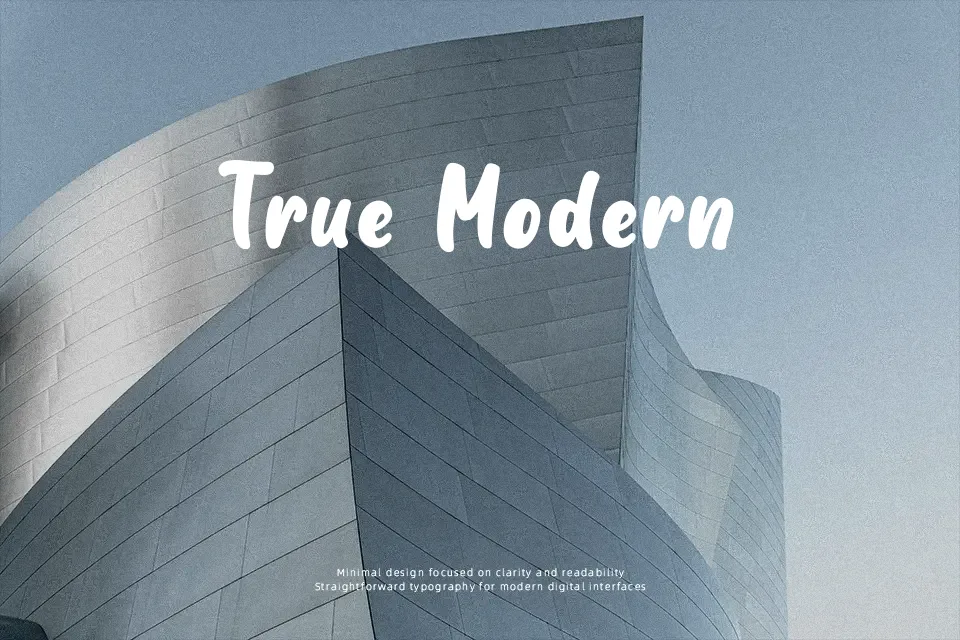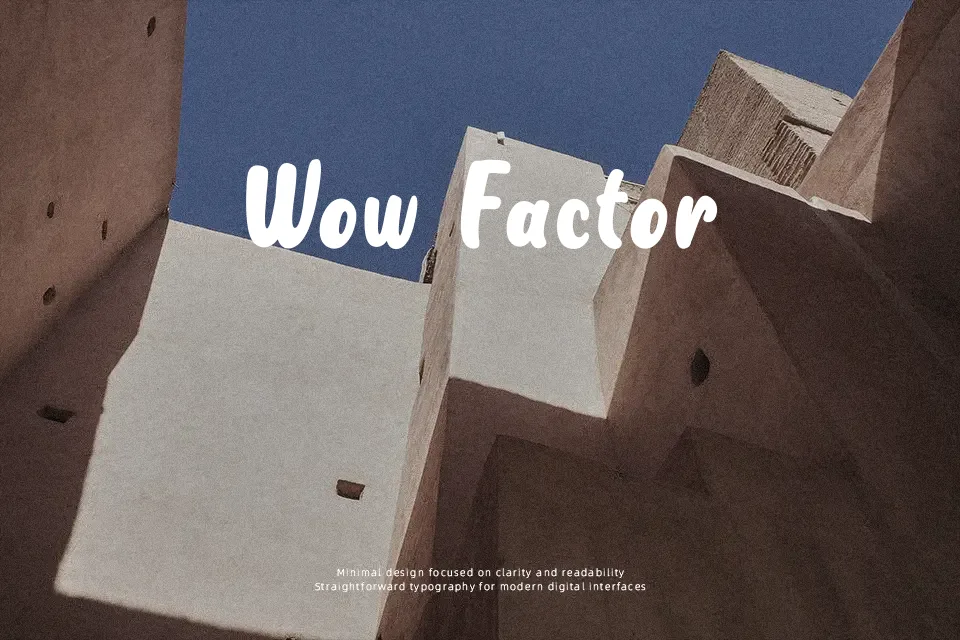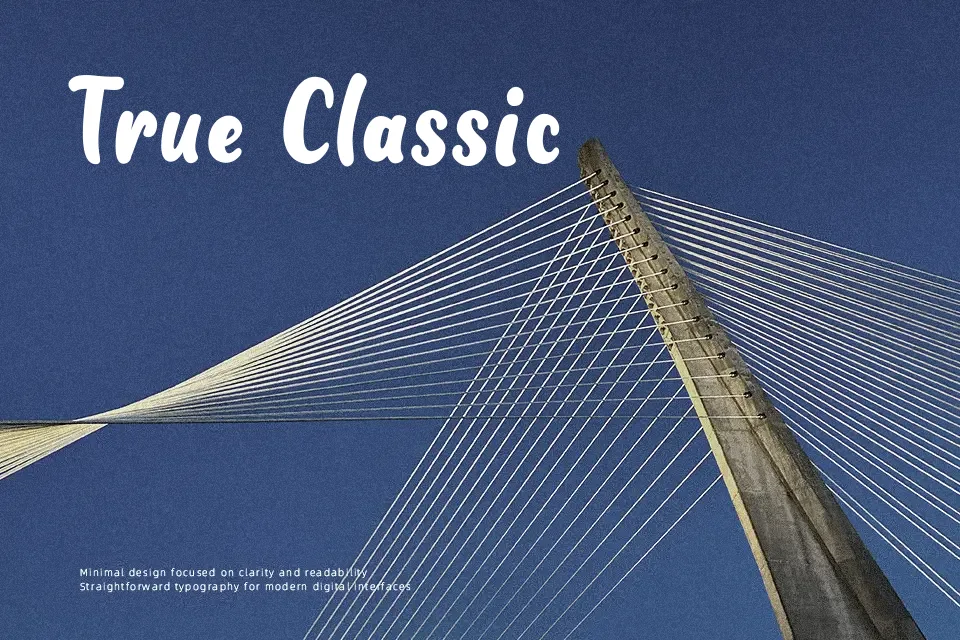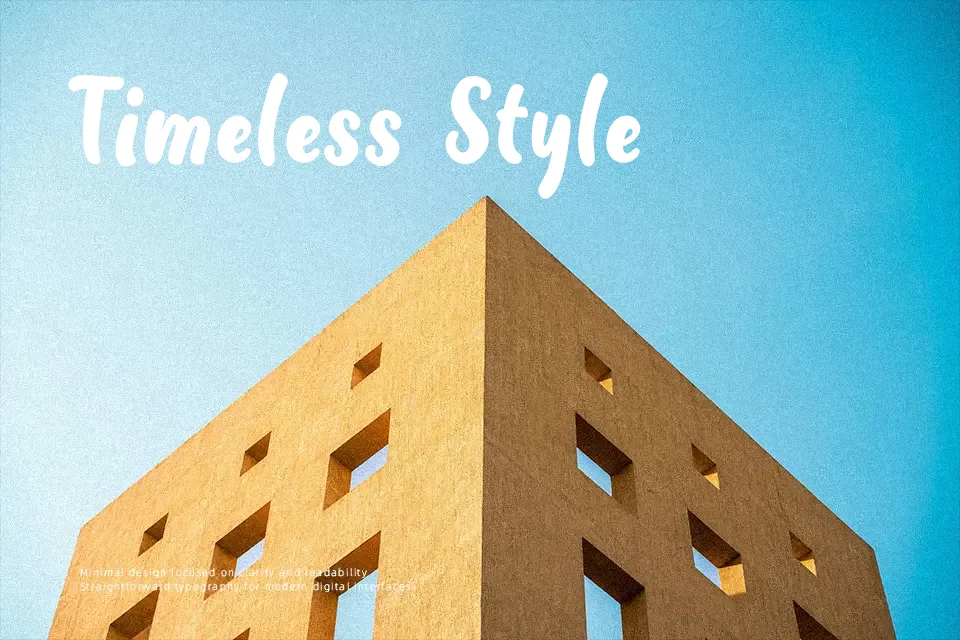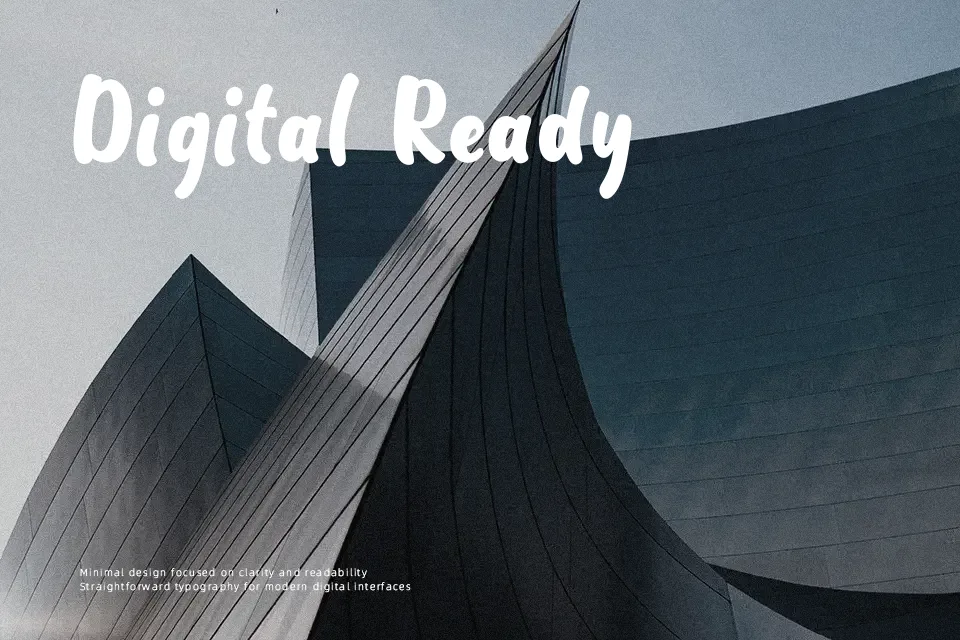
Calm Down Sampson Font
Designed by Kurnia Setyadi
Calm Down Sampson combines the punch of a display face with the looseness of handwriting, using thick, steady strokes and compact spacing that keep letters tightly connected and easy to scan. It feels casual and friendly rather than formal, so it works well on posters, social media graphics, and relaxed branding where you want a confident handwritten voice. Because of its strong weight and character shapes, it tends to dominate layouts and is less suited to long body text or projects that demand a very polished corporate look. If you already like bold marker-style scripts but want something a bit tidier and more legible, this font fills that gap.
bold social media titles
informal poster headlines
casual branding lockups
merch or t‑shirt slogans
strict corporate documents
minimalist editorial layouts
small UI labels or captions